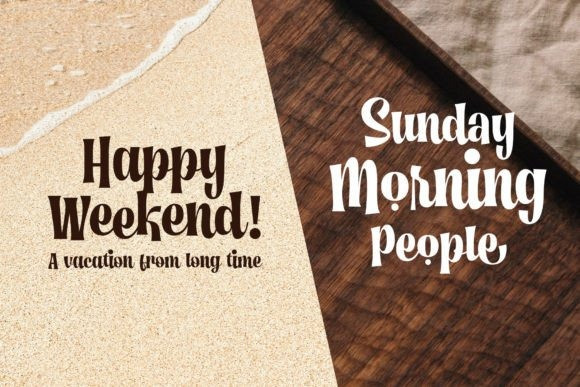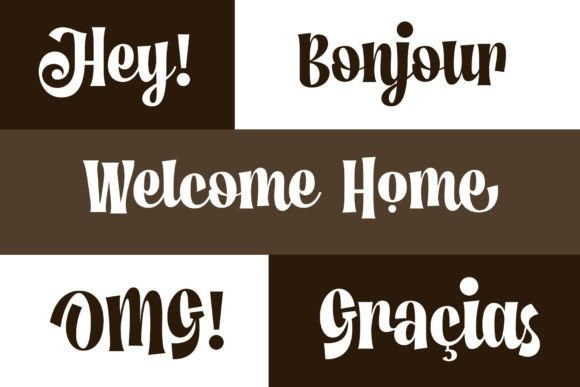
Rosiana Script Font
Say hello to “Rosiana Script Font”. This font is bold, fun, and cheerful with slightly bouncy and elegant looks that are sure to bring your design projects to life.
This font is designed with a fun, exciting, and dynamic shape, so it is perfect for use on headlines, storefronts, flyers, stickers, logotypes, storefronts, merchandise, quotes, and more!
This font is the perfect choice for you. With so many unique options available, such as stylistic alternates, ligatures & multilingual support, this font will give your project a professional look and feel.